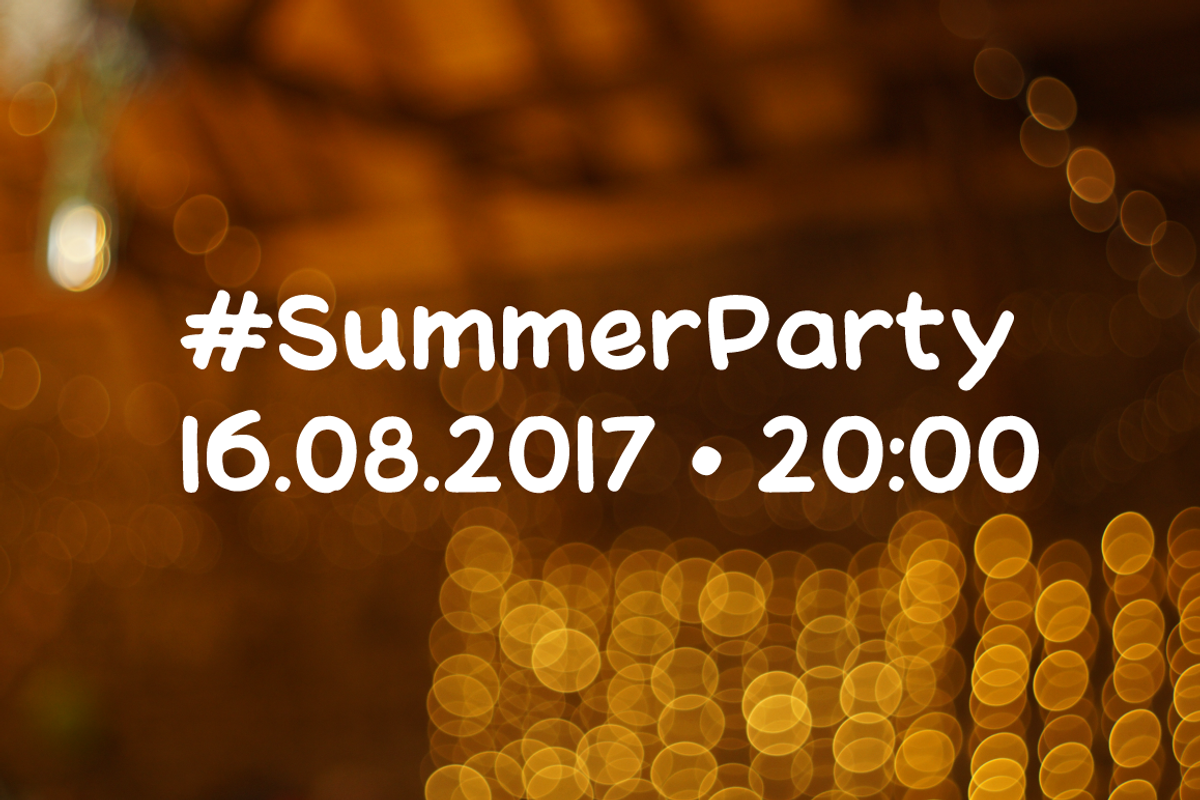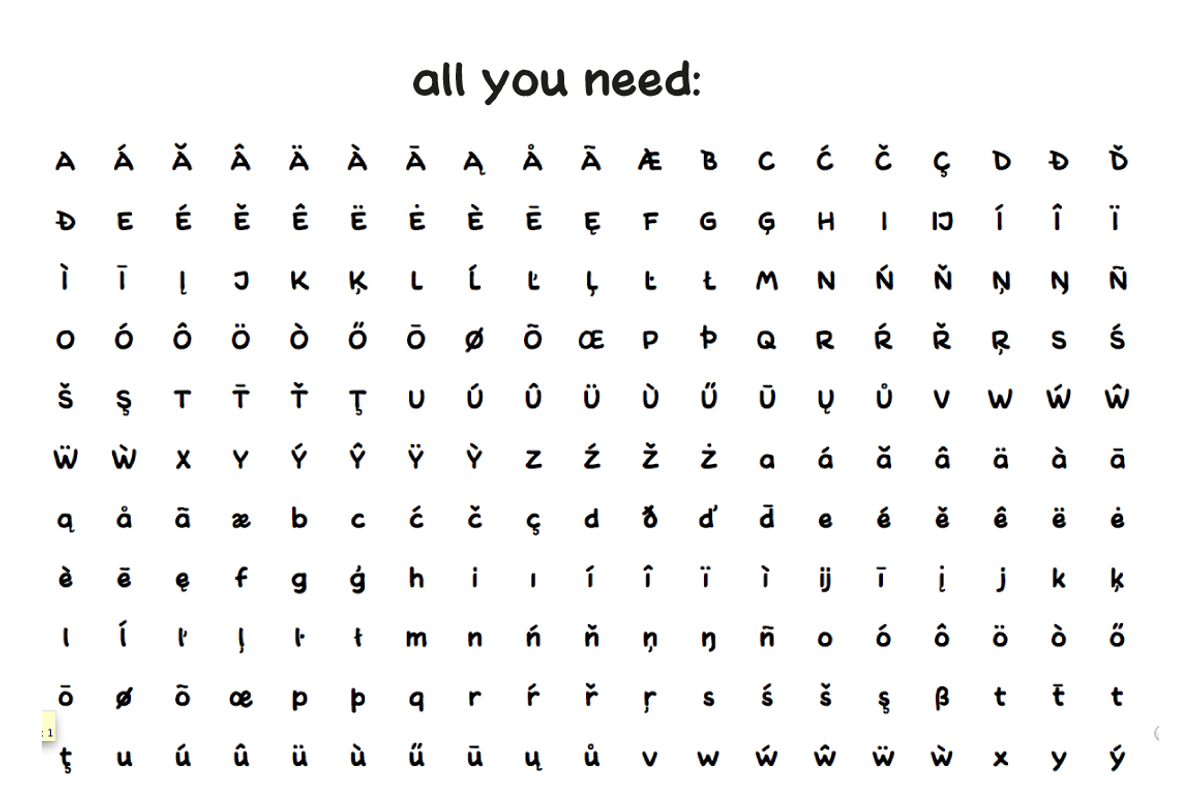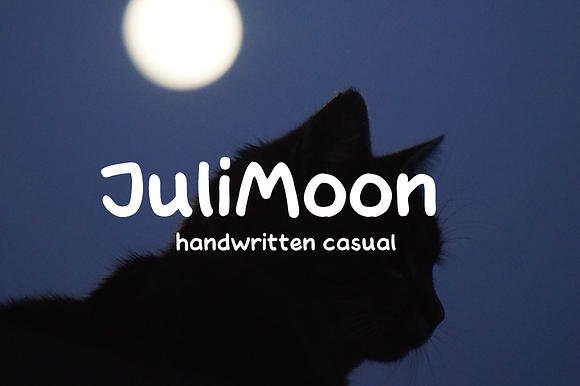
JuliMoonBold
This is JuliMoon, a handwritten font for fun memos, party invites and everything else not too serious. Included are most latin glyphs for multilanguage support.
- Included are most latin glyphs for multilanguage support.
JuliMoonBold by Fonts by ateliervonau fits naturally into Branding, posters, packaging, typography.